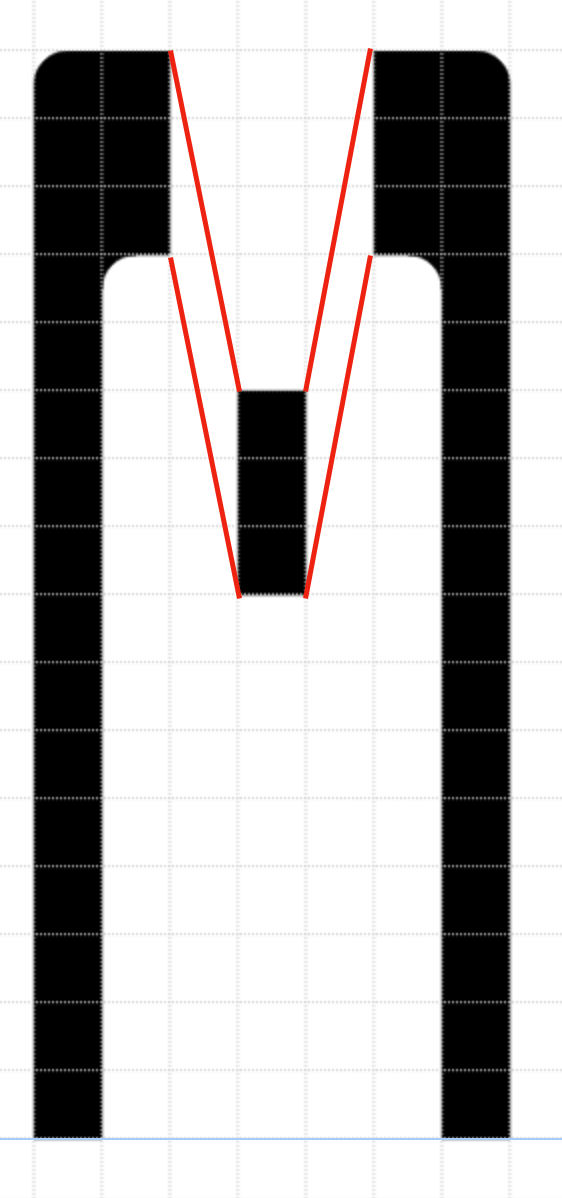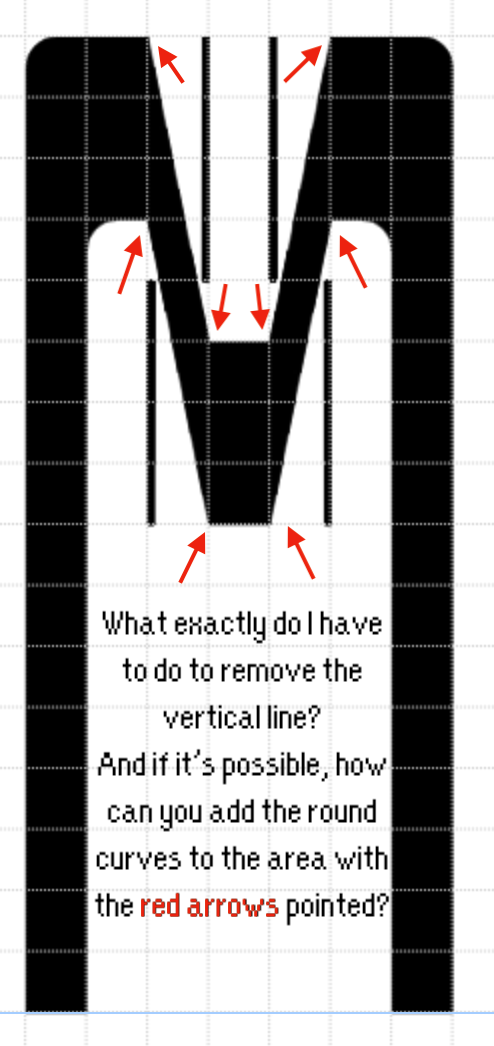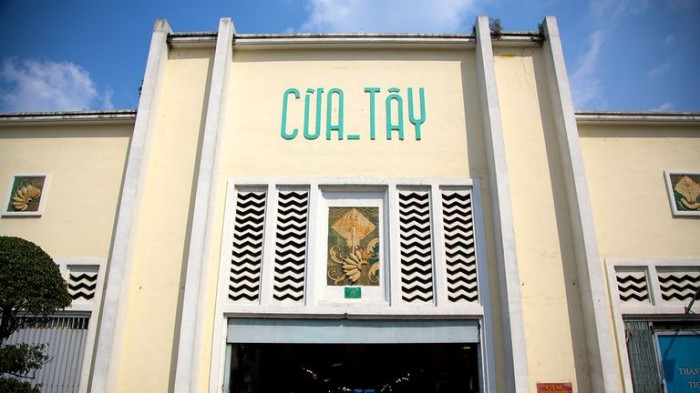
• The design of the KVN-Westgate typeface originated from the concrete lettering on the gates surrounding Ben Thanh Market in Ho Chi Minh City, Vietnam. These gates were constructed when the market underwent renovation in the mid-1900s. Having endured for decades, the lettering on the gates represents both the history of the market and the growth of the city, formerly known as Saigon.
Base height: 8 pixel
X-height: 5 pixel
Descender: 2 pixel
This is the West Gate of Ben Thanh Market in Ho Chi Minh City - Also my INSPIRATION
Interesting idea. The lowercase letters need a little work on some pairs (with glyphs like f, s or t), IMHO.
Very nice recovery work you did here pal. I'n not too sure about the design of your slashed "Ø ø". Seems quite odd this way to be honest, also this way it fills the couter of the glyphs too much as well. Also your font's actual "Slash" glyphs use a diagonal stoke.
Why not mach the slashed "Ø ø" with the font design?
@Sed4tives: WHY DIDN'T I THINK OF THAT SOONER???? Anyways, the Ø ø are fix now, it looks much better. I have to learn a lot more from this.
@elmoyenique: I have to admit that it looks a bit weird, the f is fine, I just have to fix the S, s and t, and maybe Kerning too.
@elmoyenique & @Sed4tives: Should I create some alternate letter such as a single-storey "a"?
Why not? I usually try adding such alternates.
@Sed4tives: Where do you usually put the alternate letters? I've thought of some great idea for them.
I usually put alternate forms in the private use area and half width full width block.
Just added 10 alternate letters to my font, I have a lot in mind...
@Sed4tives: What do you think about those alternate letters I made?
So far I think they look good..
I want some help with this, I want to make some bricks to connect the two upper side of the M to the middle part of it, but I don't know which bricks to create.
To shift 5:1 you shouldn't make composite stacked bricks but resize the sloped bricks and nudge/rotate them into position to bridge the gaps!
In case you wanna do it from composites, thats the diagram to do it!
You can also do it in 1x5 rows using the 45-45-90 degree triangle bricks in this arrangement:
◣□□□■
■◣□□■
■■◣□■
◥■■◣■
■◥■■◣
■□◥■■
■□□◥■
■□□□◥
■ = square brick, □ = empty, ◣ = Cut Corner 2, ◥ = Cut Corner 4
Hoover cursor over the composite brick in the palette an press shift+click the brick. This pops up a small brick composition layout of the used bricks, somply click the unwanted parts in the composition. They light up in yellow when you can click them.